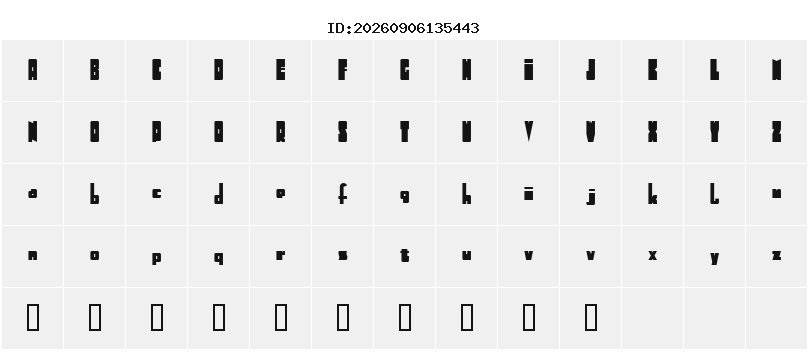
Tallblocks Preview
• Font Name: Tallblocks
• Full Font Name: Tallblocks
About Tallblocks.ttf
Tallblocks.ttf is a modern, elegant sans-serif font designed for ultimate readability and visual harmony. Perfect for branding, headlines, web design, and print materials.